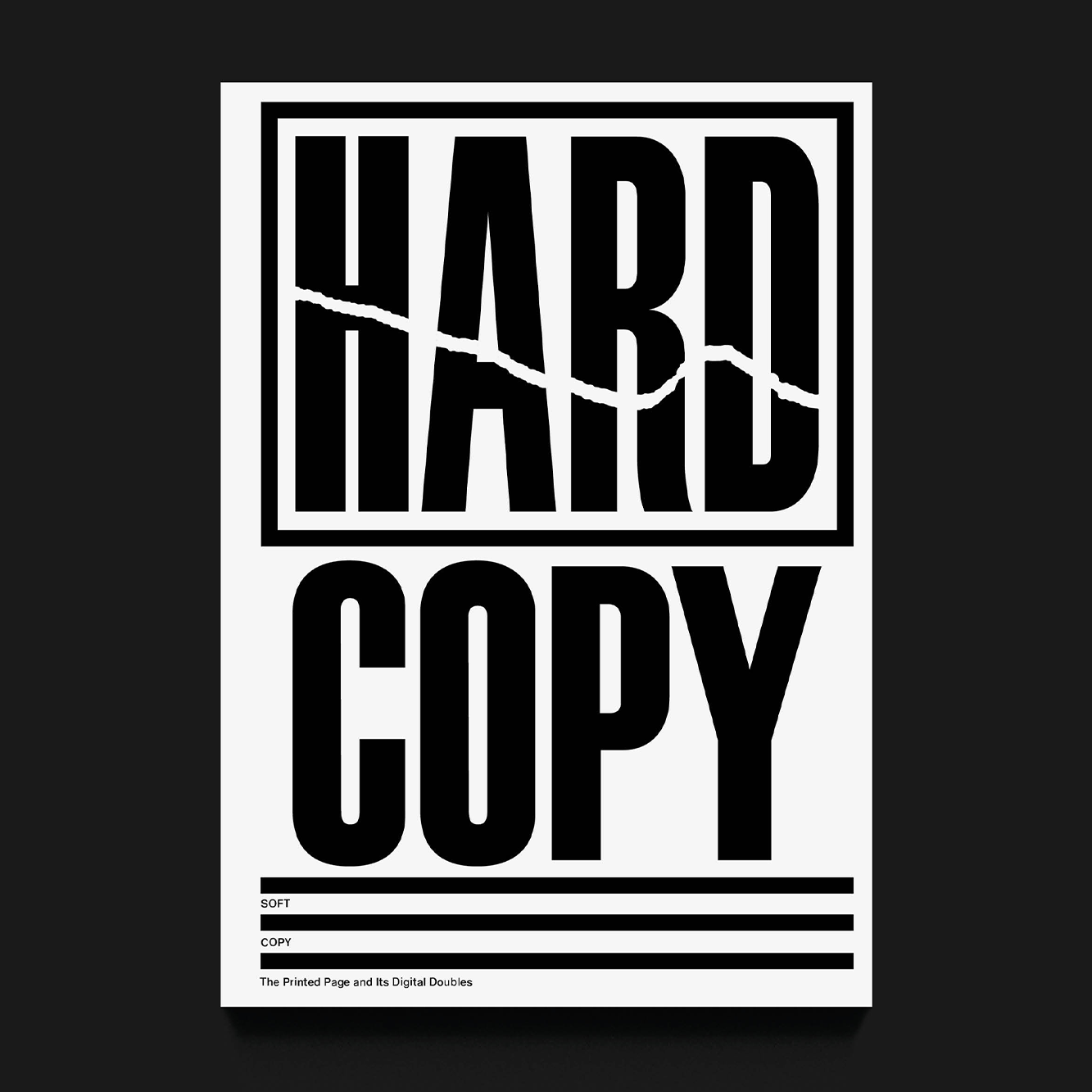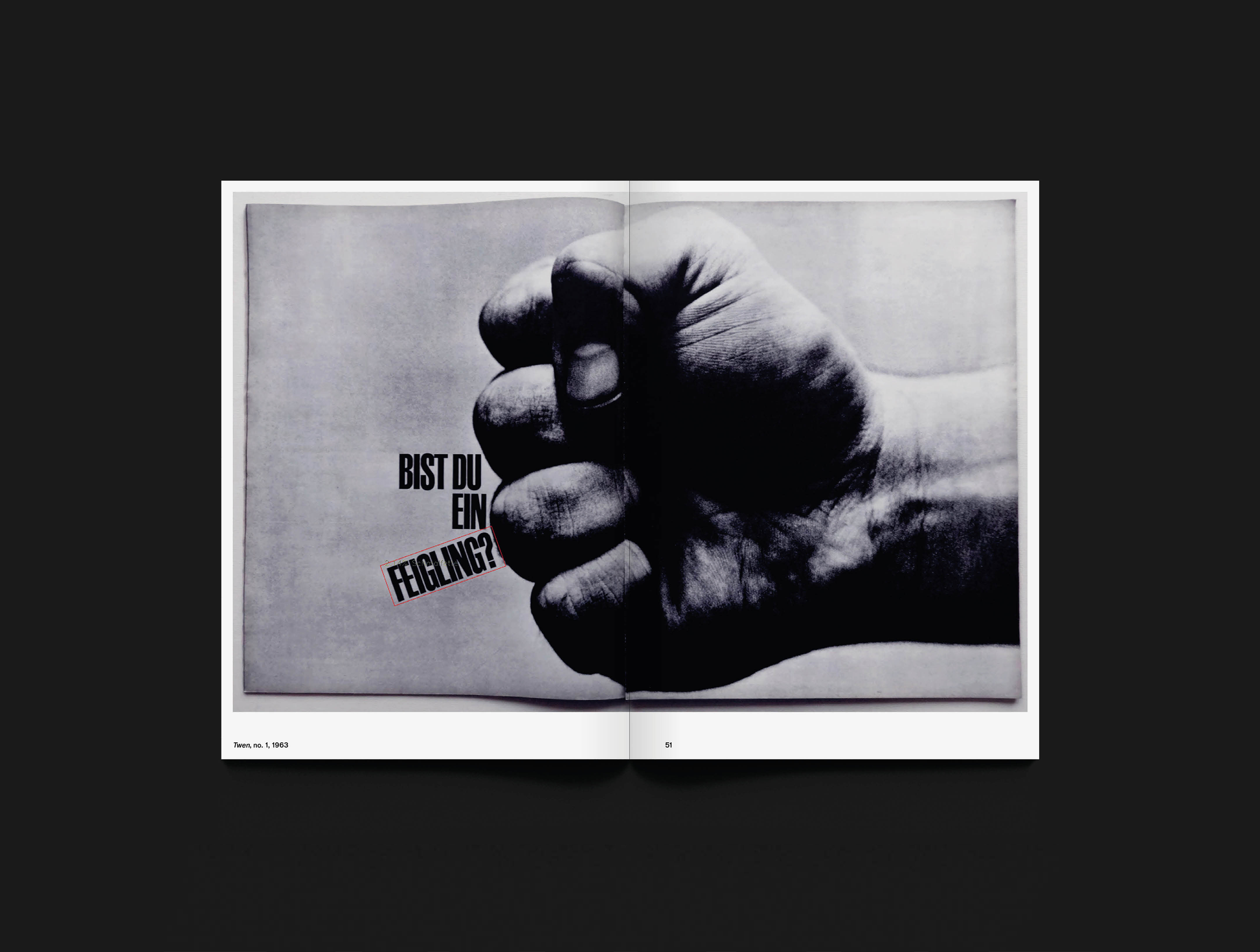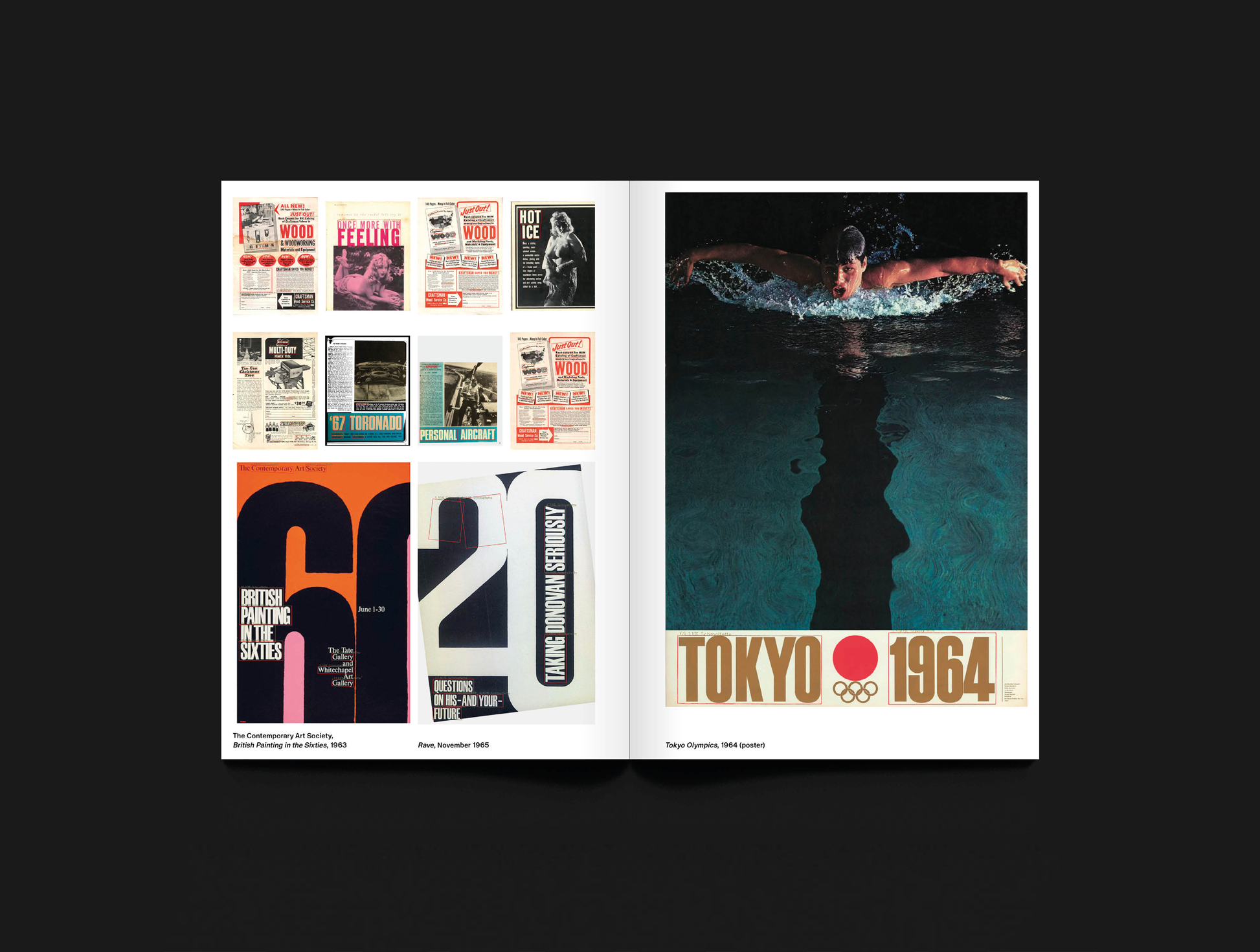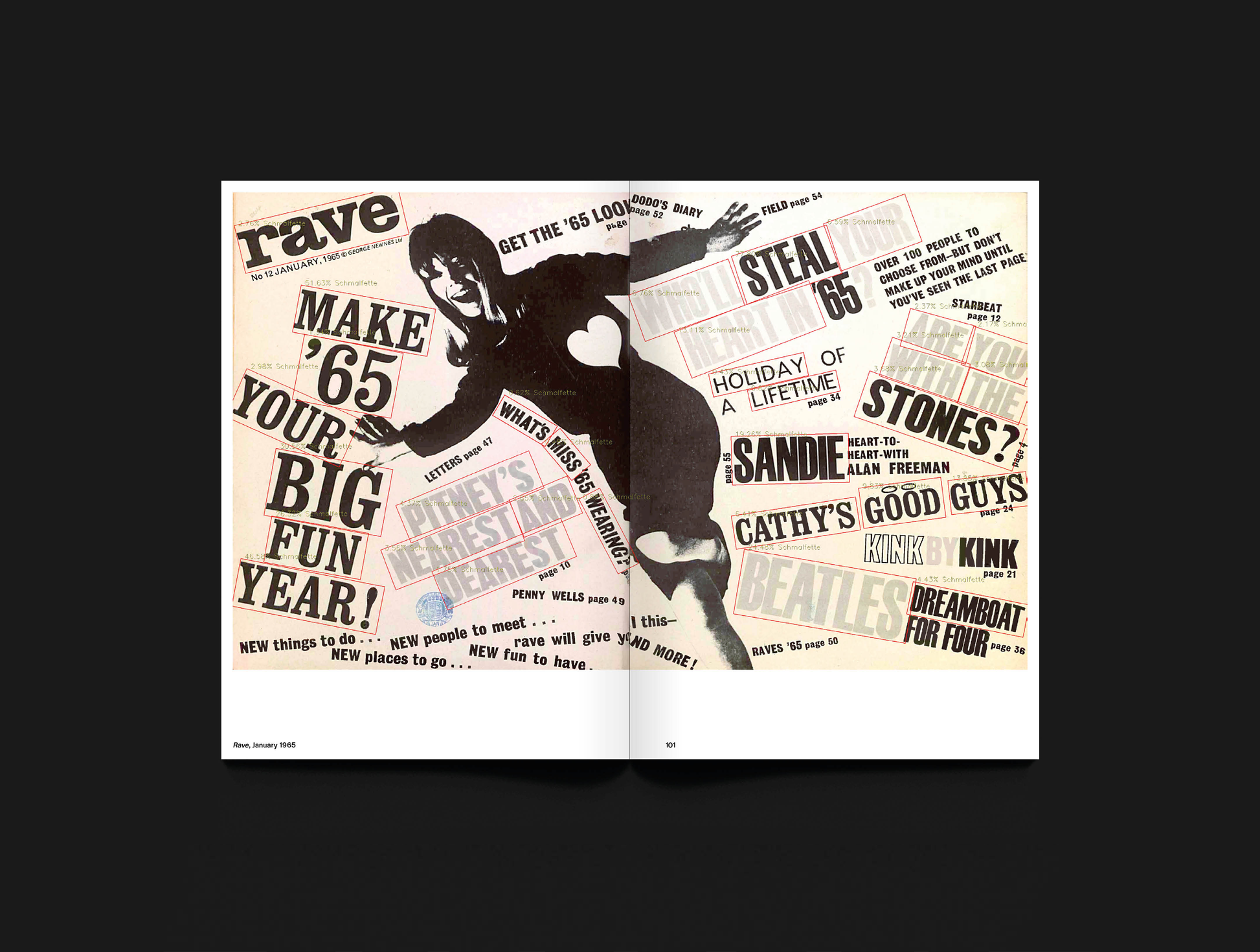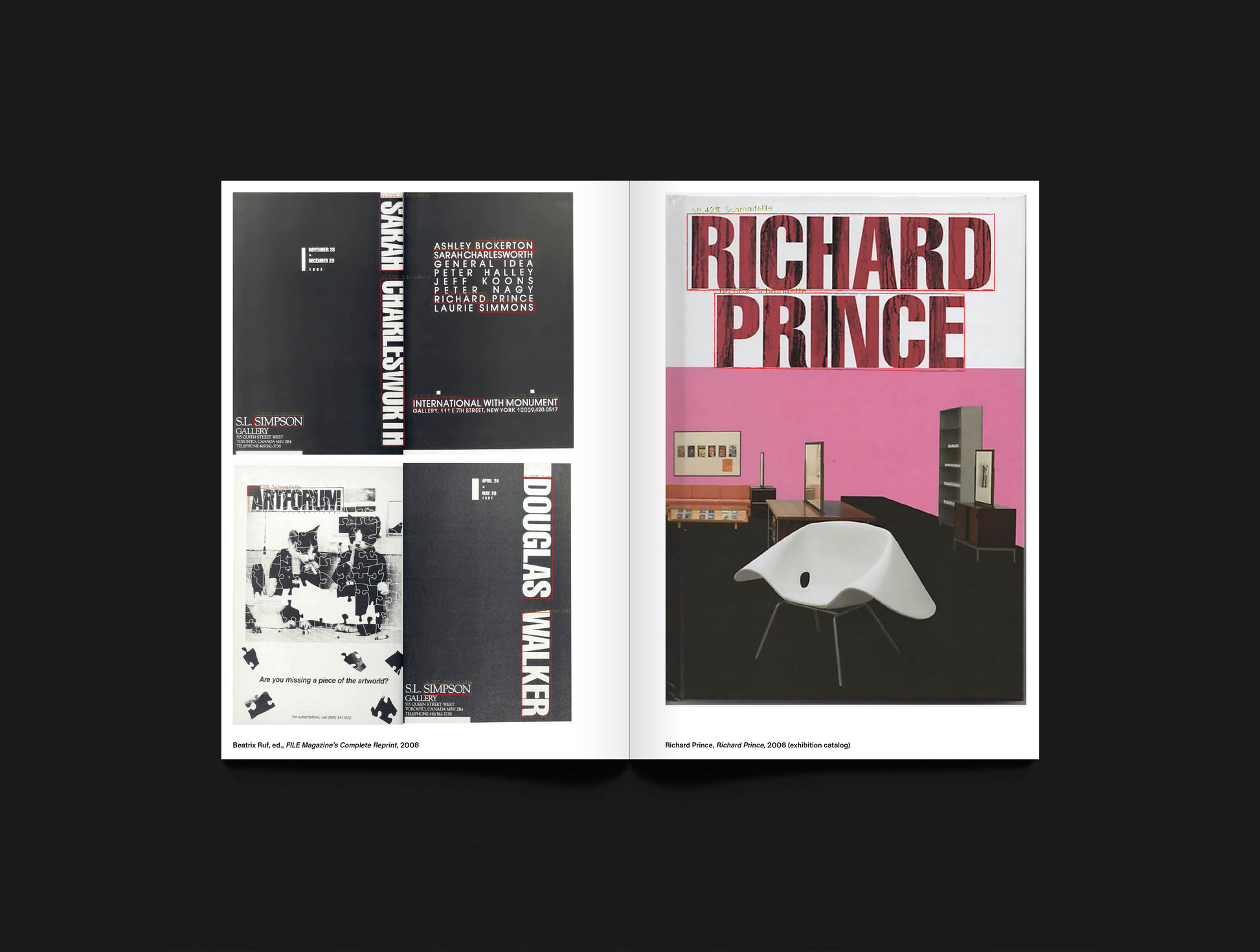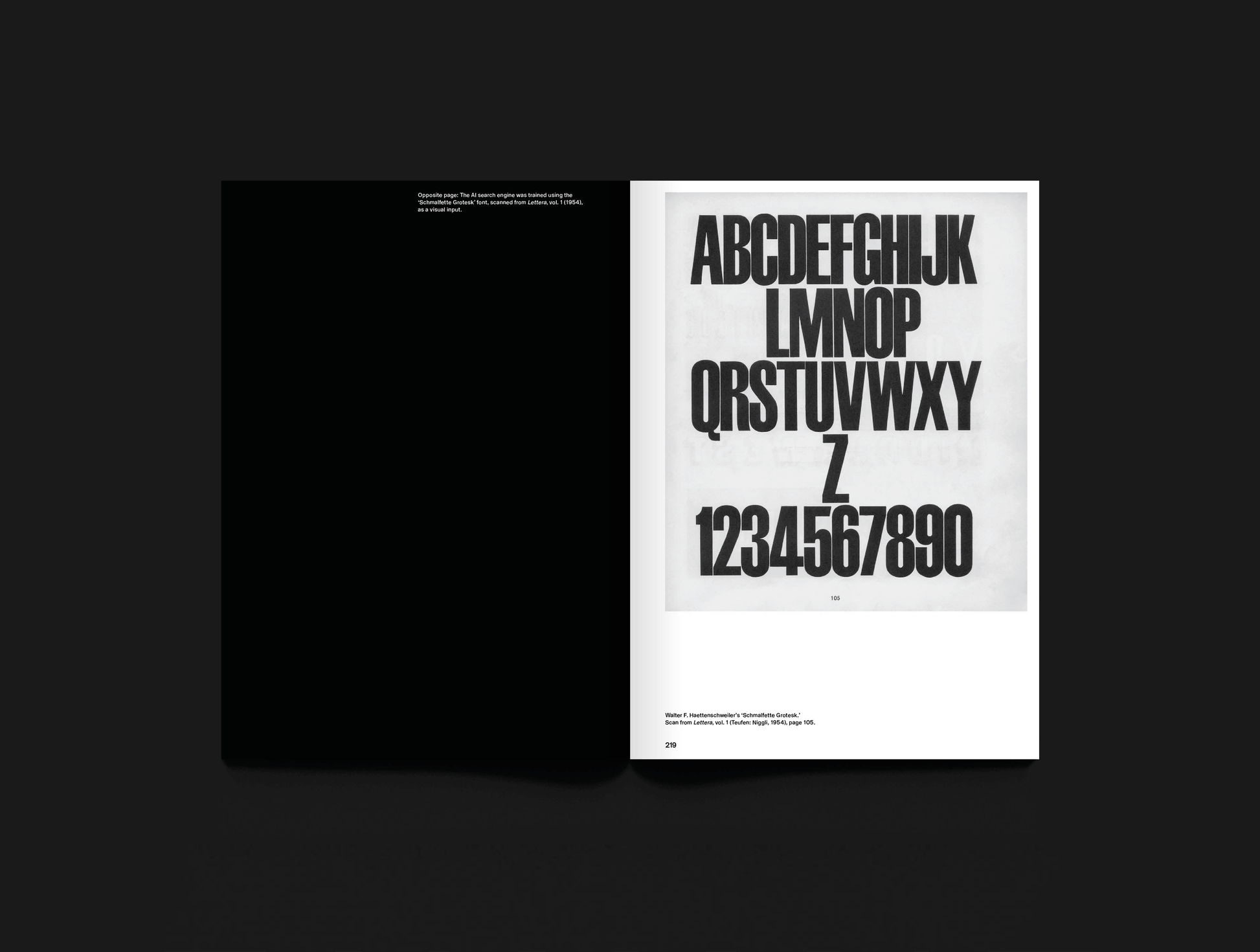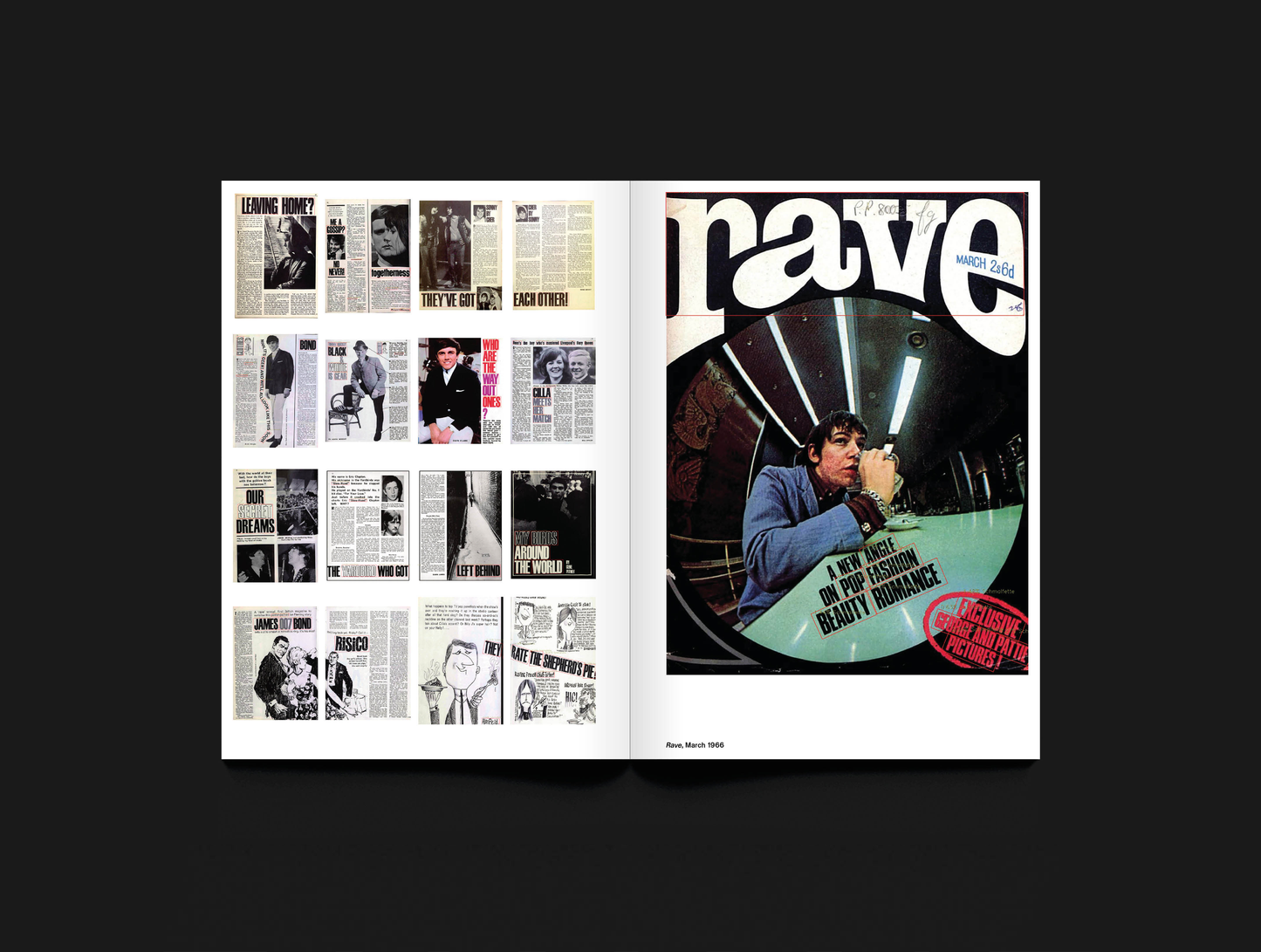
HARD COPY, SOFT COPY
The Printed Page and Its Digital Doubles
HARD COPY, SOFT COPY maps the shift in publishing, dissemination, and reception, from print to digital, mirrored in the trajectory of the typeface ‘Schmalfette Grotesk’ by Swiss designer Walter F. Haettenschweiler from the 1950s up to today.
This research project moves from museums’ text-based search methods to a machine-learning image-centric approach to uncover visual artifacts from vast digital collections.
HARD COPY, SOFT COPY, resulting from a research project (2021-2024) undertaken by Marietta Eugster and Andreas Koller, was published in conjunction with the Haettenschweiler retrospective at Museum für Gestaltung Zürich, October 2022 to February 2023.